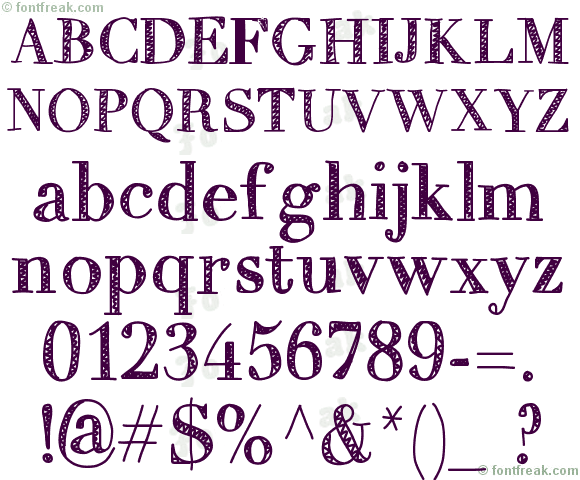
MixTitanica
MixTitanica, designed by Mikko Sumulong, is a striking display font that elegantly marries playful aesthetics with a unique character. This decorative font features a distinctive stroke weight that varies throughout its letterforms, creating a sense of rhythm and movement. The spacing is well-balanced, allowing for clear legibility while maintaining an artistic flair. Decorative elements, such as subtle embellishments within the characters, add an inviting charm that captures attention.
Ideal use cases for the MixTitanica font include wedding invitations, where its whimsical style can convey a sense of celebration and love. It also excels in crafting eye-catching movie posters, providing a unique visual identity that stands out in crowded markets. Restaurant menus can benefit from its artistic qualities, drawing diners in with an appealing presentation of the culinary offerings. Additionally, this font can enhance branding materials for small boutique businesses, helping them to establish a memorable and distinctive look.
Targeted towards graphic designers, small business owners, and content creators, MixTitanica caters to anyone looking to add a touch of creativity and uniqueness to their projects. Its versatility allows for a range of applications, ensuring that it can meet various design needs without compromising on style.
What makes the MixTitanica font truly special is its ability to combine artistic flair with functionality. Its whimsical yet legible design ensures that it can be used effectively across various media, making it a valuable asset for any designer's toolkit. For those seeking to elevate their projects with a touch of personality, the MixTitanica font free download is an excellent choice, offering both aesthetic appeal and practical versatility.